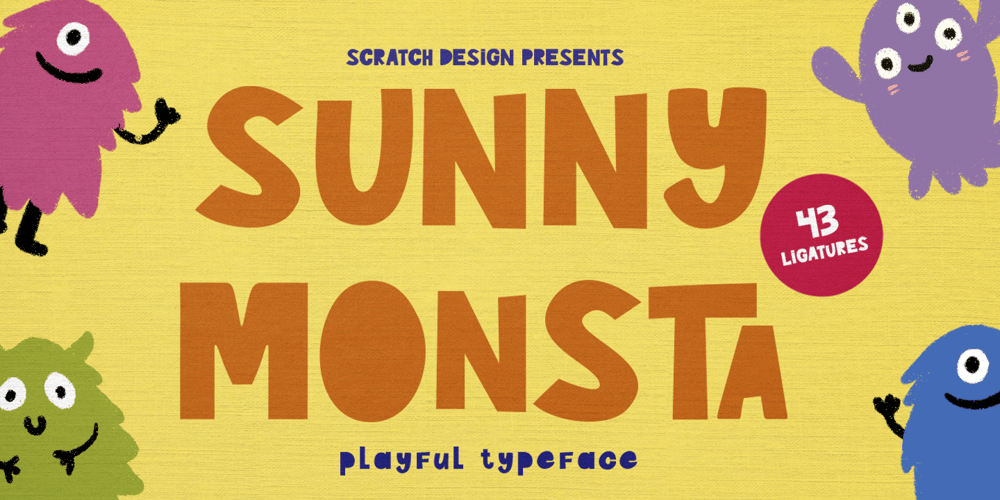
Sunny Monsta Font Family was designed by Gitayogi Irhandi and published by Scratch Design. Sunny Monsta contains 1 styles and family package options. Sunny Monsta is a playful and fun typeface. This type of font is perfectly made to be applied especially for children’s designs such as storybooks, activity books, animations or others. This font will also be suitable for various designs such as invitations, magazines, logos, labels, packaging, headlines, cards, fashion, stationery and other designs that need an eye-catching font.What you’ll get: Uppercase and lowercase Numbers and punctuation Multilingual support 43 Ligatures We highly recommend using a program that supports OpenType features and Glyphs panels like many Adobe apps so that you can see and access all Glyph variations.We hope you enjoy our font!